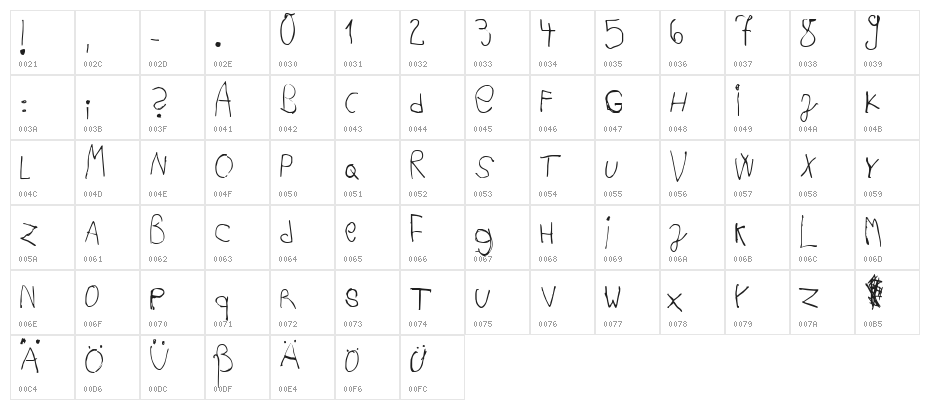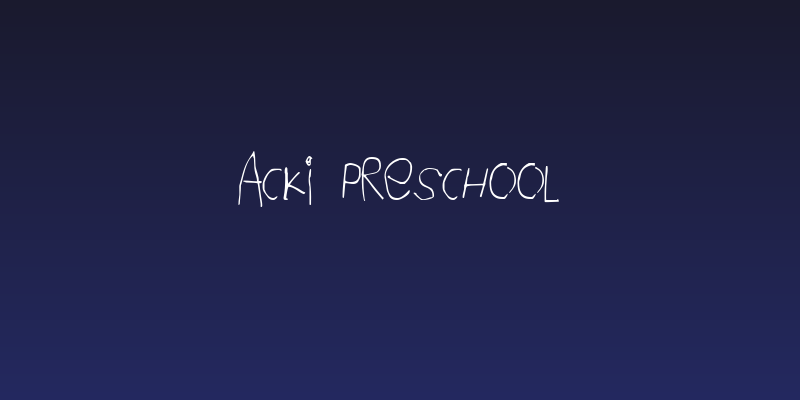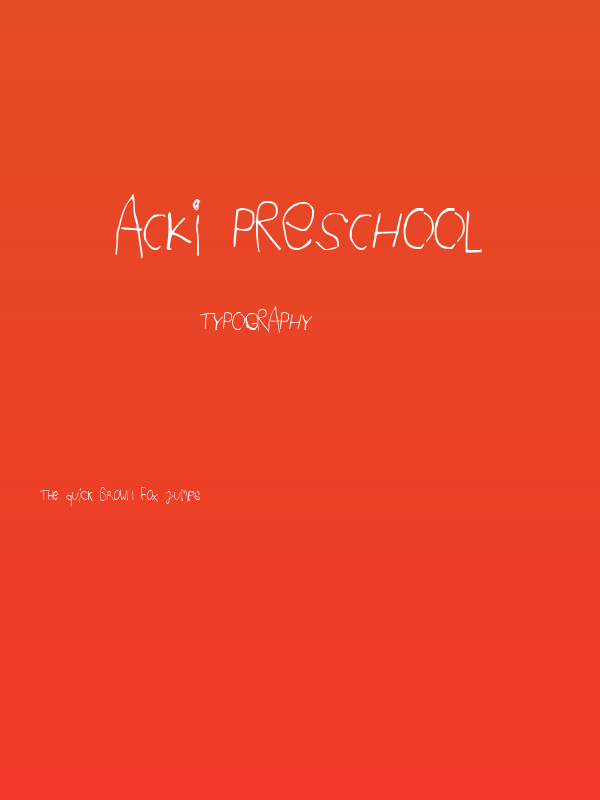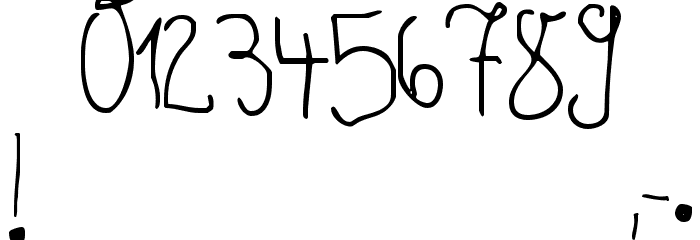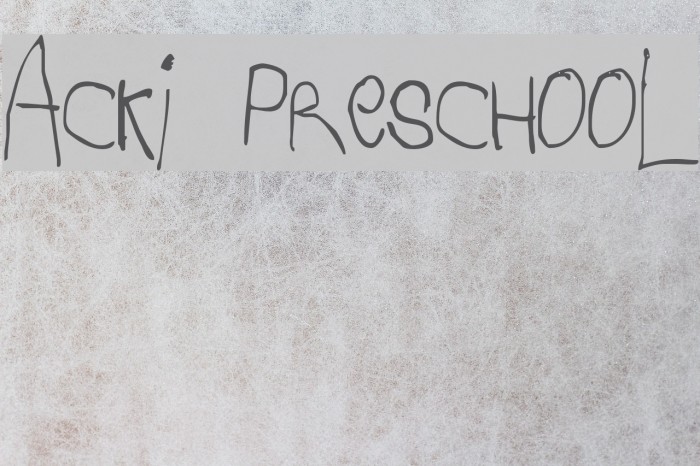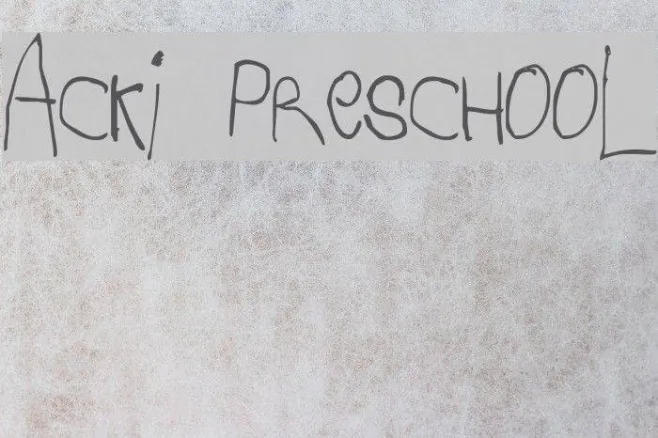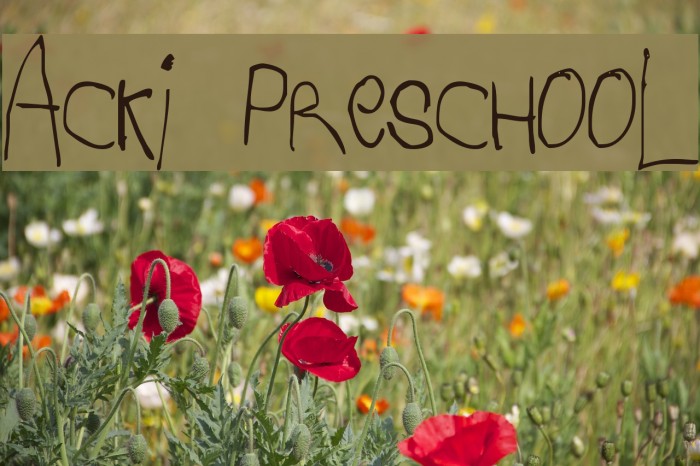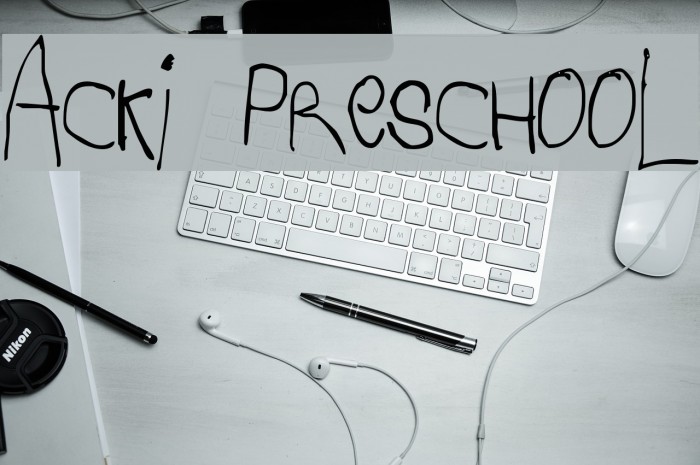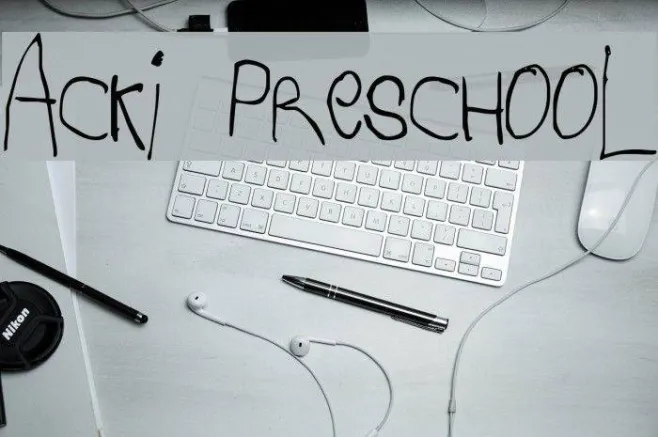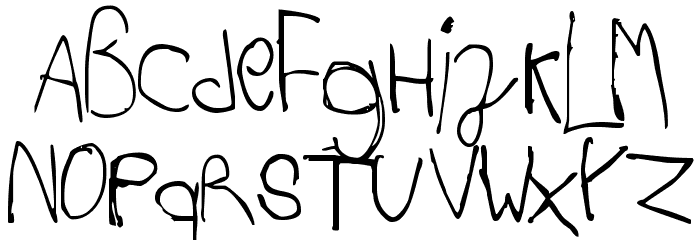
Acki Preschool Font
Acki Preschool Description
This playful and whimsical font captures the essence of a child's handwriting, characterized by its irregular strokes and varying line thickness. The letters are unevenly spaced, adding to its charm and authenticity. The font features both uppercase and lowercase letters, numerals, and a few special characters. Its hand-drawn appearance makes it ideal for projects that require a personal touch or a sense of innocence and creativity. The strokes are mostly rounded, with some letters having unique loops and curves, enhancing its playful nature.
| Use Case | Headlines, Creative projects, Children's materials |
| Proposed Projects | Ideal for children's books, educational materials, playful invitations, and creative projects that require a personal touch. |